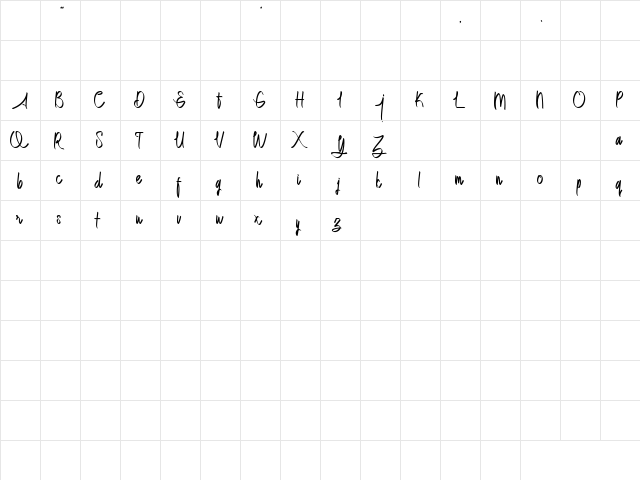
Dettallia Personal Use Only Regular
Design Context for Dettallia Personal Use Only Typeface
Dettallia Personal Use Only is a composed and adaptable typeface that performs quietly and consistently across a wide range of design contexts.